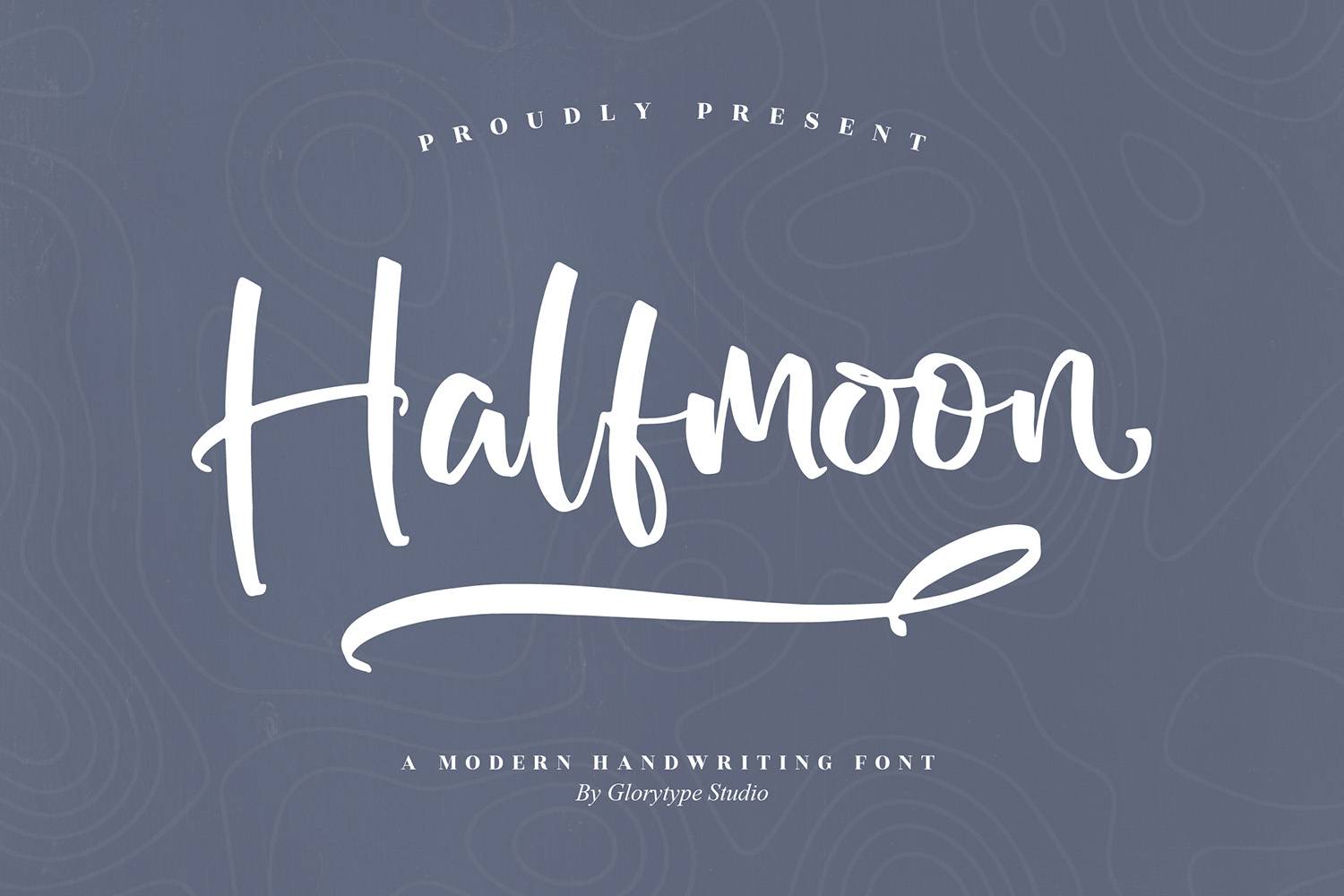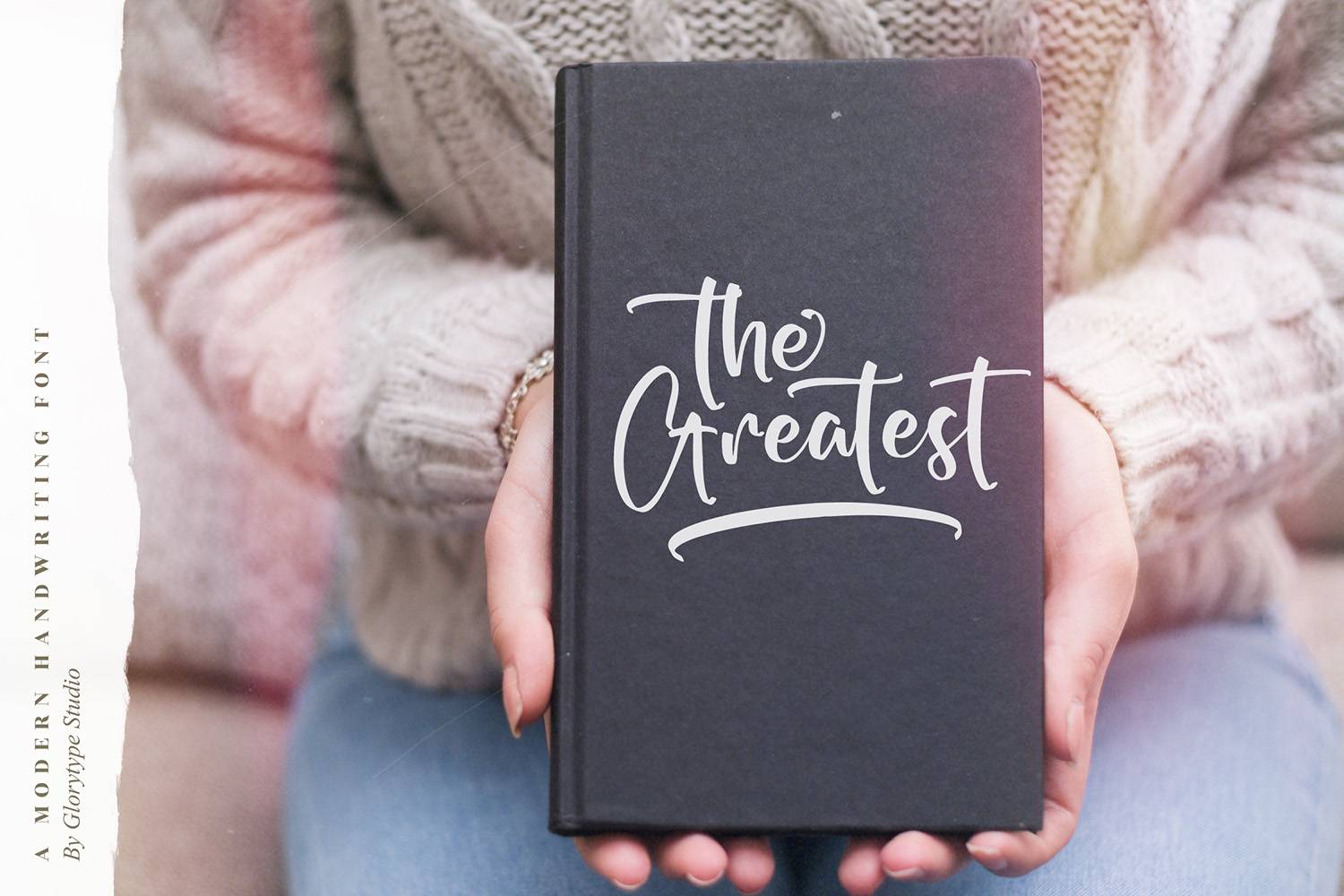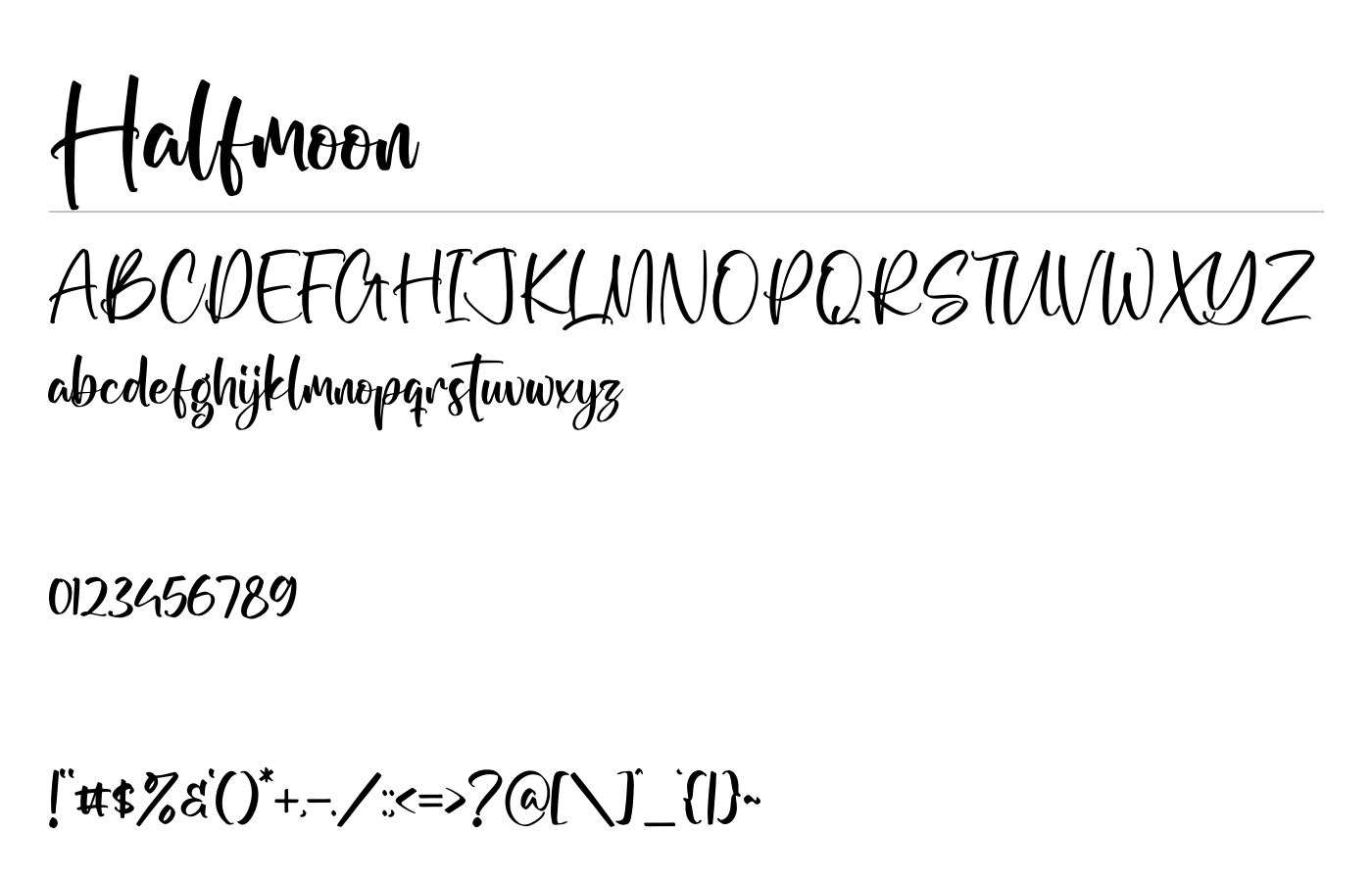
Halfmoon is a playful and elegant handwritten script font characterized by its smooth, flowing strokes and lively letterforms. It features a natural, brush-like texture with moderate contrast and a casual, friendly feel, making it perfect for creative branding, invitations, and stylish headlines that seek a personal and approachable touch. This font works great where a warm, artistic vibe is desired, adding personality and charm to any design.
Halfmoon Font
About Halfmoon Font